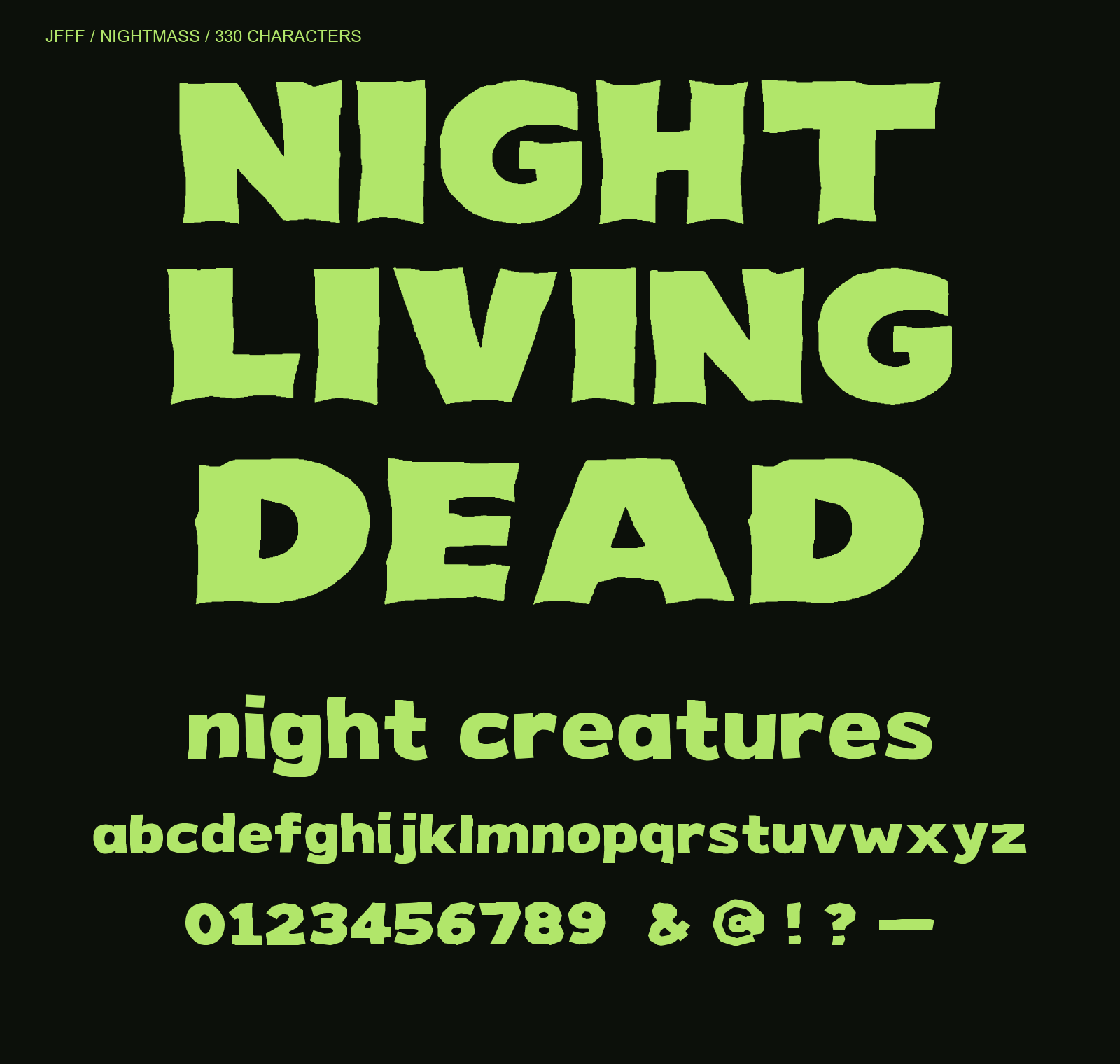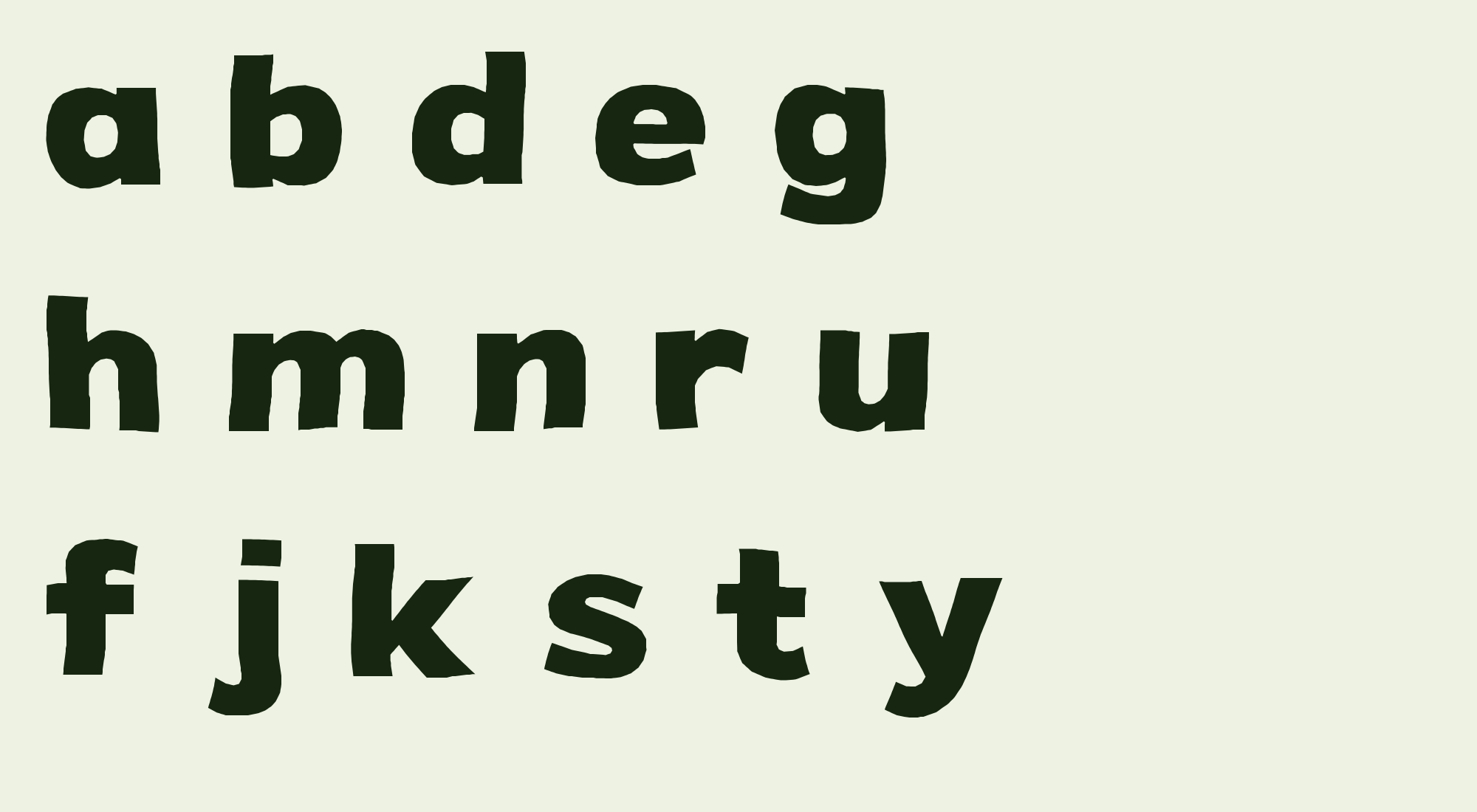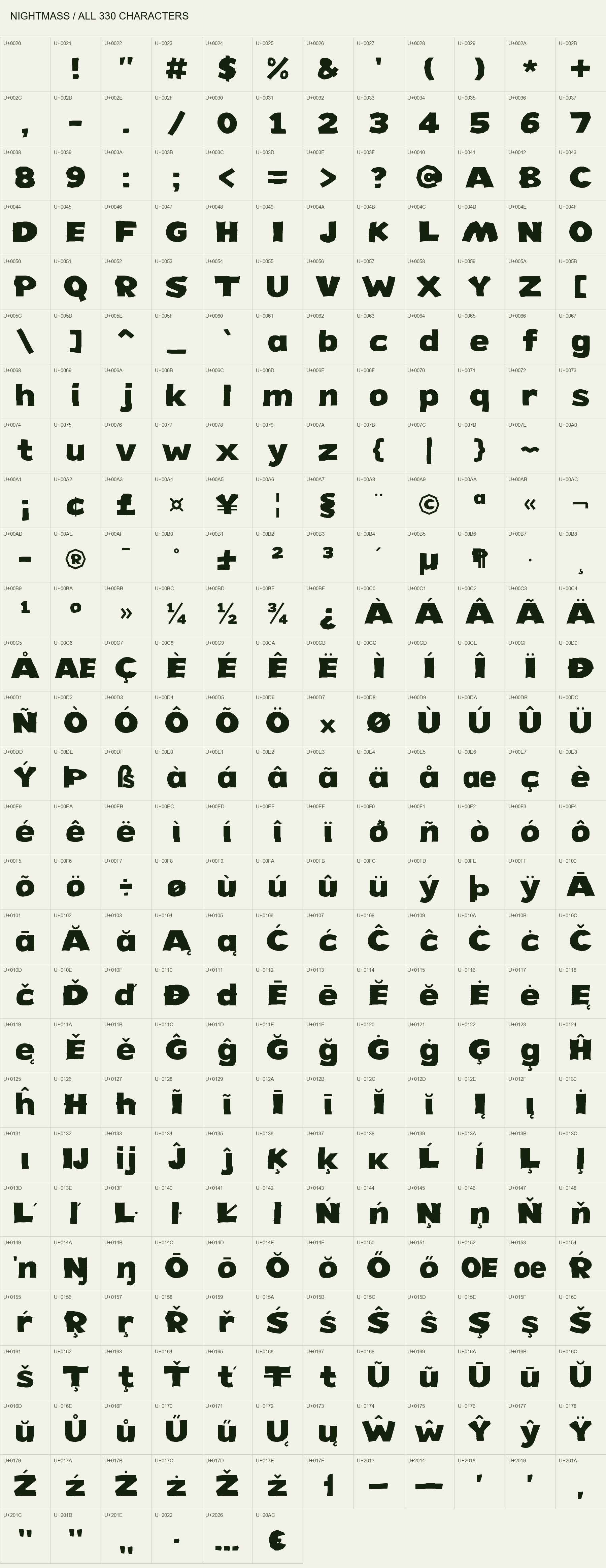
Free distressed block font
NIGHTMASS extra-bold display font with broad, wavy-edged letters in lime green on black.
Heavy shapes. Uneasy edges. NIGHTMASS is an extra-bold display font with broad letterforms, compact counters and gently undulating edges. Version 0.200 redesigns the lowercase with thick shoulders, continuous joins and wide cut terminals that echo the capitals. Use it for film-inspired posters, bold packaging and short headlines. 330 encoded characters and 331 glyphs: printable Basic Latin, Latin-1, Latin Extended-A and 11 additional punctuation characters. Start at 48 pt or 64 px. Download includes TTF and SIL OFL 1.1. Accented Latin uses precomposed characters; Hangul and independent combining marks are not included. Small text may close the counters. Design preview; native editing-app installation and print workflows have not been verified.